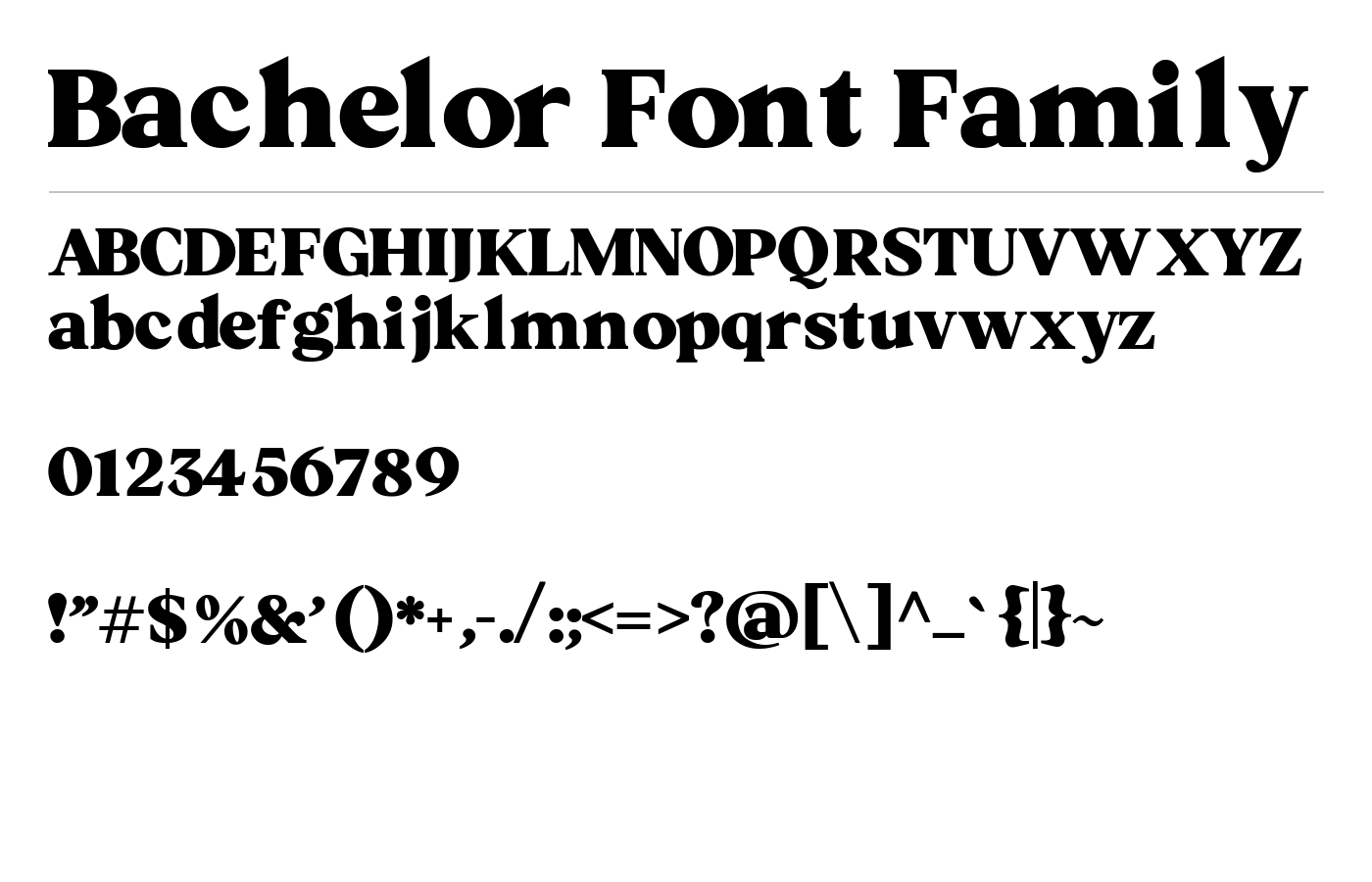
Bachelor Font is a bold serif typeface with a strong presence, featuring thick, bracketed serifs and a medium-to-high contrast between strokes. Its classic and slightly playful letterforms, such as the distinctive single-story 'g' and the curved tail on the 'Q', give it an authoritative yet approachable feel. This font works well for headlines, logos, and editorial use where a combination of tradition and bold impact is needed.
Bachelor Font
About Bachelor Font
| Font family | Bachelor Font |
| Designer | Ridwanfil (Ridwan Fadilah) |